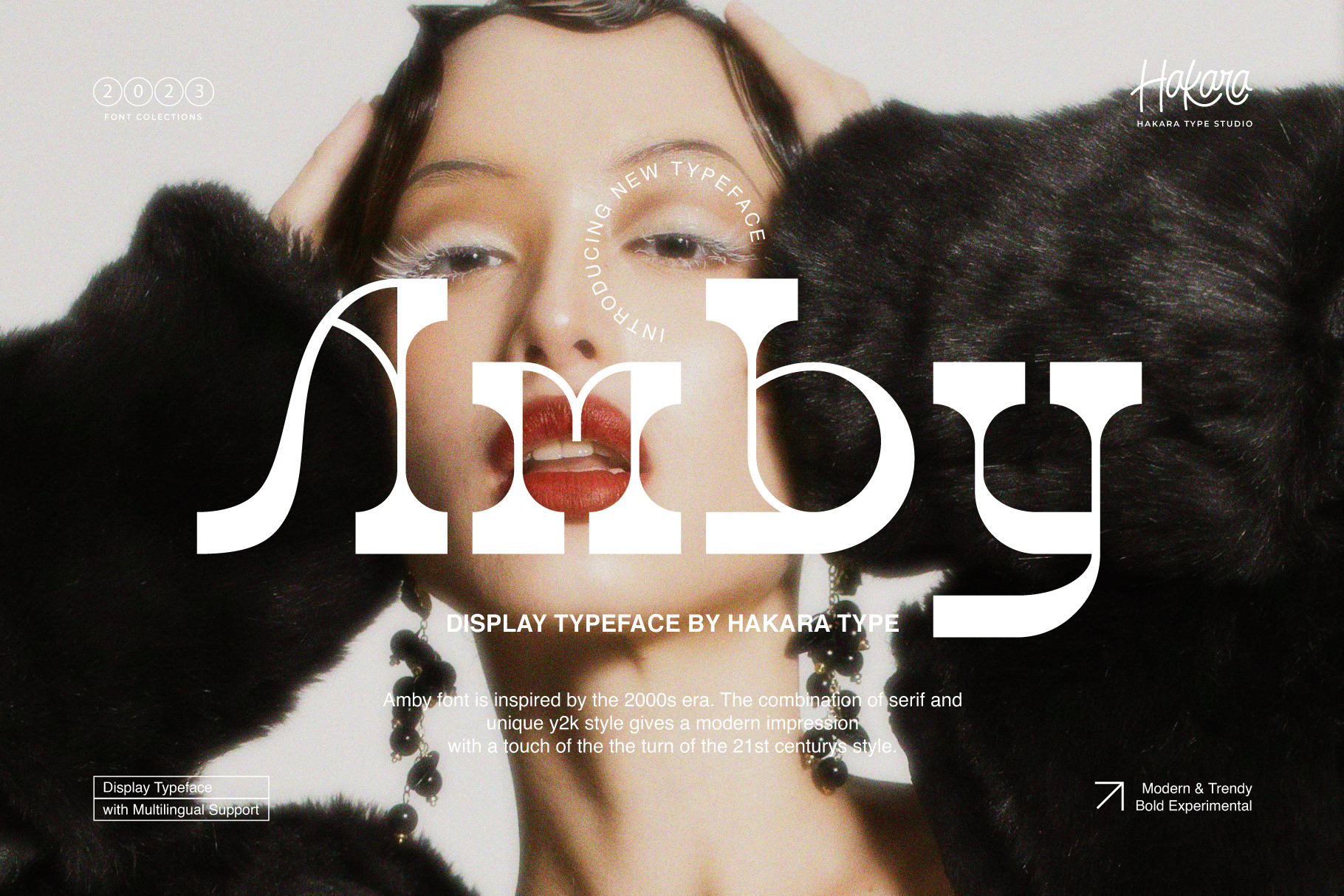
Amby - Display Typeface
Amby font is inspired by the 2000s era. The combination of serif and unique y2k style gives a modern impression with a touch of the the turn of the 21st century's style. Amby is perfect for branding projects, logo, social media posts, advertisements, product packaging, product designs, label, photography, watermark, invitation, stationery, and more. Amby comes with uppercase, lowercase, numbers, function, and included multilingual support.